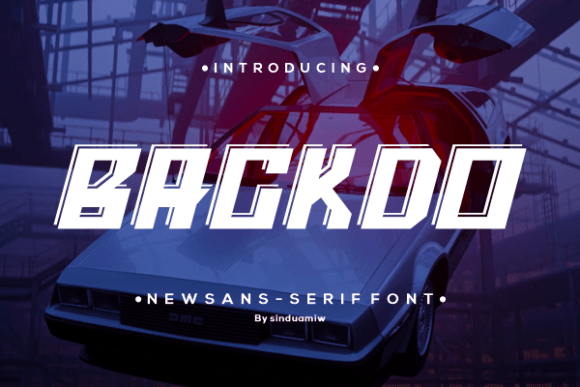
Introducing Backdo Font: The Cool and Futuristic Display Font You Need
Are you tired of using the same old fonts in your design projects? Do you want to add a touch of futurism and coolness to your creations? Look no further than Backdo Font! This amazing display font is designed to take your designs to the next level, and we’re excited to share its features and benefits with you.
What is Backdo Font?
Backdo Font is a modern and sleek display font that’s perfect for designers, crafters, and anyone looking to add a unique touch to their projects. Its futuristic design makes it ideal for a wide range of applications, from posters and flyers to digital graphics and branding materials.
Key Features of Backdo Font
- Unique and Futuristic Design: Backdo Font boasts a one-of-a-kind design that’s sure to turn heads. Its sleek lines and curves give it a futuristic feel that’s perfect for modern designs.
- Highly Versatile: Whether you’re working on a digital project or a print design, Backdo Font is highly versatile and can be used in a variety of contexts.
- Easily Readable: Despite its futuristic design, Backdo Font is surprisingly easy to read, making it perfect for headlines, titles, and short paragraphs of text.
Why Choose Backdo Font?
So, why should you choose Backdo Font for your next design project? Here are just a few reasons:
- Add a Touch of Futurism: Backdo Font is the perfect way to add a touch of futurism to your designs. Its unique design will set your projects apart from the rest.
- Stand Out from the Crowd: With Backdo Font, you can create designs that stand out from the crowd. Its bold and eye-catching design is sure to grab attention.
Tips and Tricks for Using Backdo Font
Here are a few tips and tricks to help you get the most out of Backdo Font:
- Use it for Headlines: Backdo Font is perfect for headlines and titles. Use it to grab attention and add a touch of futurism to your designs.
- Experiment with Colors: Backdo Font looks amazing in bold and bright colors. Experiment with different colors to create unique and eye-catching designs.
- Pair it with Other Fonts: Backdo Font pairs well with other fonts. Experiment with different font combinations to create visually appealing designs.
In conclusion, Backdo Font is a cool and futuristic display font that’s perfect for designers, crafters, and anyone looking to add a unique touch to their projects. Its unique design, versatility, and ease of use make it a must-have font for any designer. So why wait? Download Backdo Font today and take your designs to the next level!